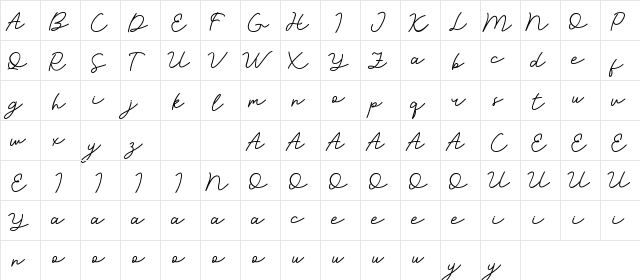
SelvilliaDreamerDEMO Regular
| Foundry | edric studio |
| Designer | Fahri F F |
Design Context for SelvilliaDreamerDEMO Typeface
SelvilliaDreamerDEMO is a composed and adaptable typeface that performs quietly and consistently across a wide range of design contexts.